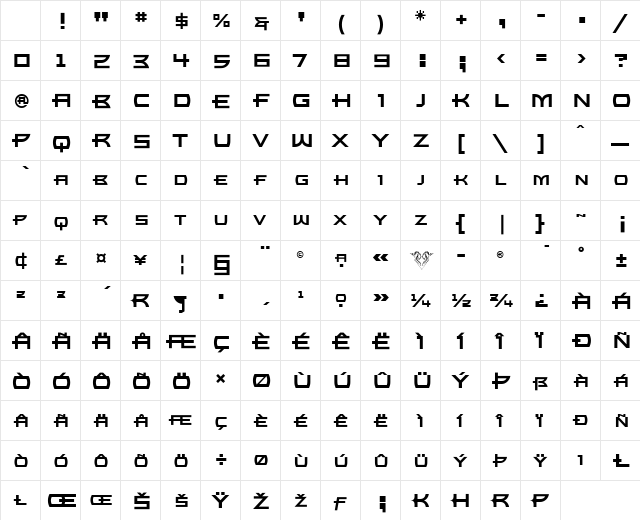
Complete Bronzo Bold glyph index. Displaying only characters natively supported by Bronzo Bold font.
Bronzo is a composed and adaptable typeface that performs quietly and consistently across a wide range of design contexts. Its bold stroke weight gives it real presence on the page.